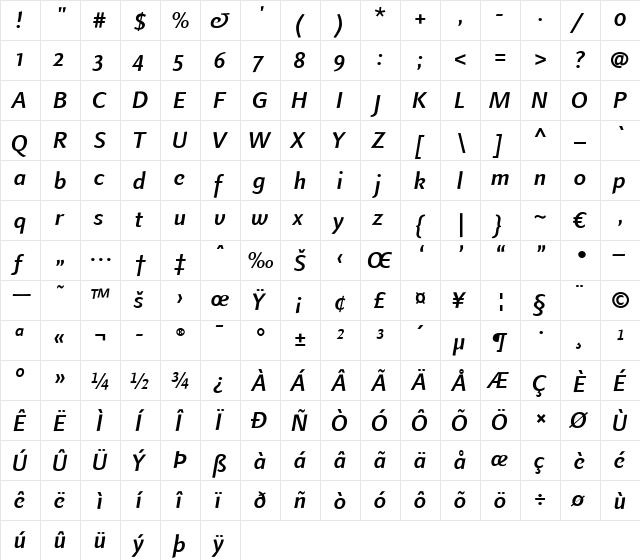
LTFinnegan OsF Medium Italic
| Designer | Juergen Weltin |
Design Context for LTFinnegan OsF Medium Typeface
LTFinnegan OsF Medium takes a measured approach to typography — its balanced proportions and neutral character make it a reliable workhorse for both digital and print work. Its italic angle brings a sense of urgency and motion to the letterforms.